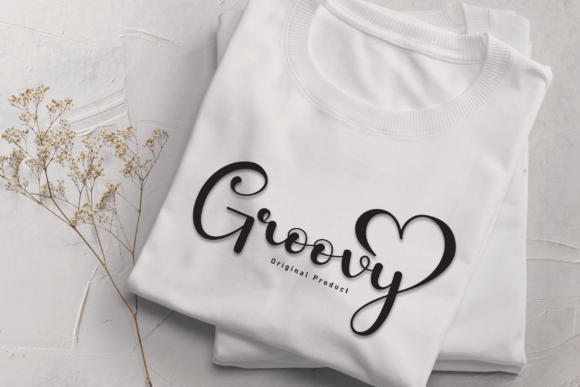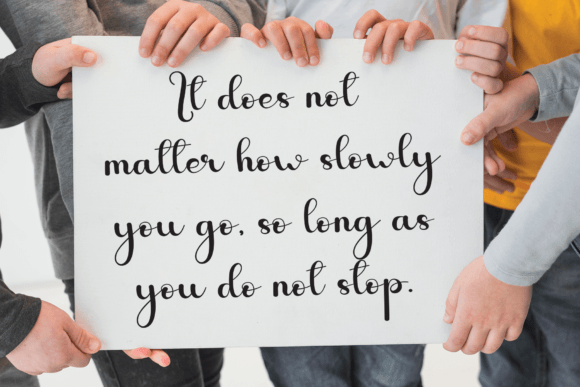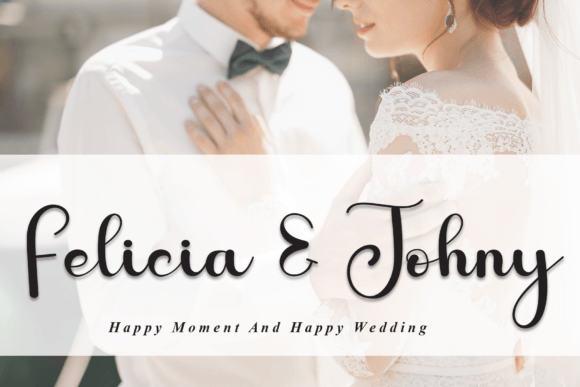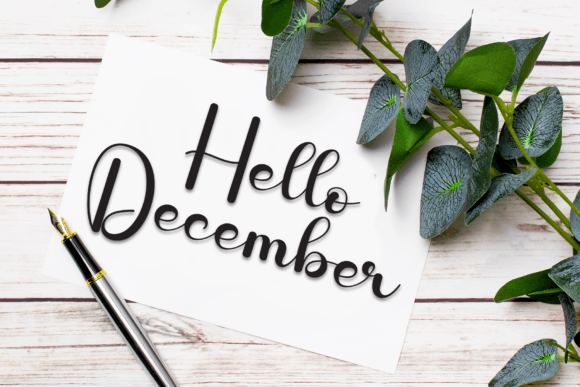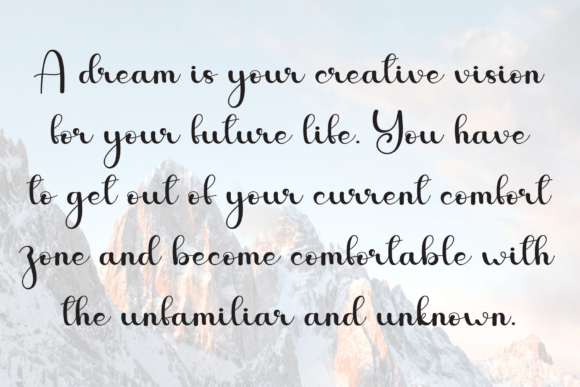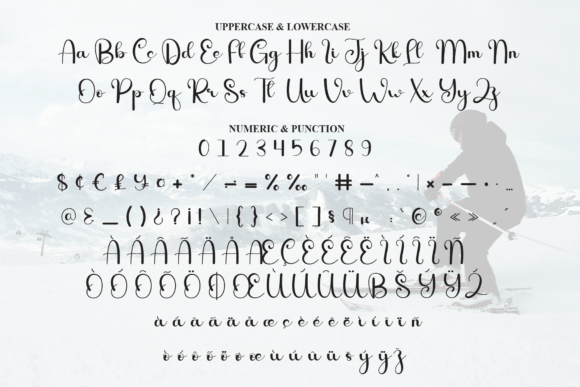
Introduction to Skiing Font
“Skiing” in a handwritten font would look casual and personal, with flowing, smooth lines that mimic the movement of a skier.
The letters might have a slight slant or curve, adding a sense of motion and excitement, like gliding down a snowy slope The font would be easy to read, with a fun, informal style.
Key Features of Skiing Font